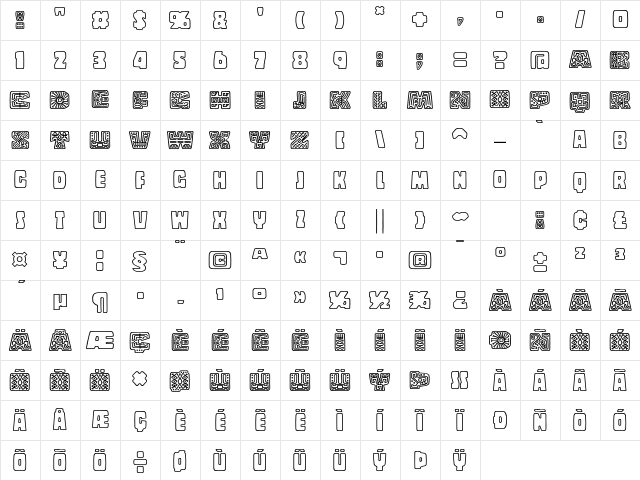
Copal Std Decorated Free Font
Copal Std Decorated
Style: Decorated
Designer: David Lemon
Design Context for Copal Std
Copal Std is a composed and adaptable typeface that performs quietly and consistently across a wide range of design contexts.